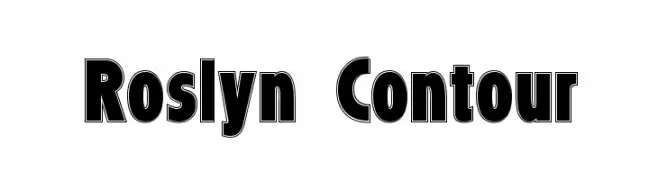
A bold, contoured font with a vintage yet modern appeal.
A bold, contour-styled font with a modern, decorative flair.
Bold, blocky font with thick contours and a playful style.
A bold, contour-outlined font with a collegiate, varsity style.
A bold, contoured font with a strong visual presence.
A bold, decorative font with a three-dimensional contour effect.
A bold, contour-styled font with a modern and decorative flair.
A bold, contour-styled font with a modern yet classic appeal.
A bold, contour-style font with thick outlines and a playful, assertive presence.
A bold, rounded font with a playful, three-dimensional contour.